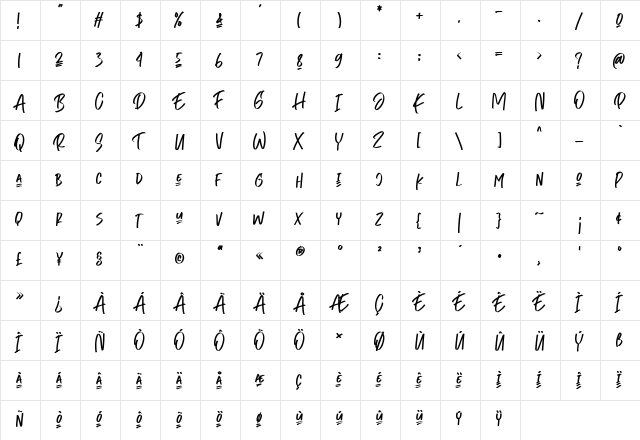
Heroic Mage Regular
| Foundry | Motokiwo |
| Designer | Anton Cahyono |
Design Context for Heroic Mage Typeface
Heroic Mage is a composed and adaptable typeface that performs quietly and consistently across a wide range of design contexts.